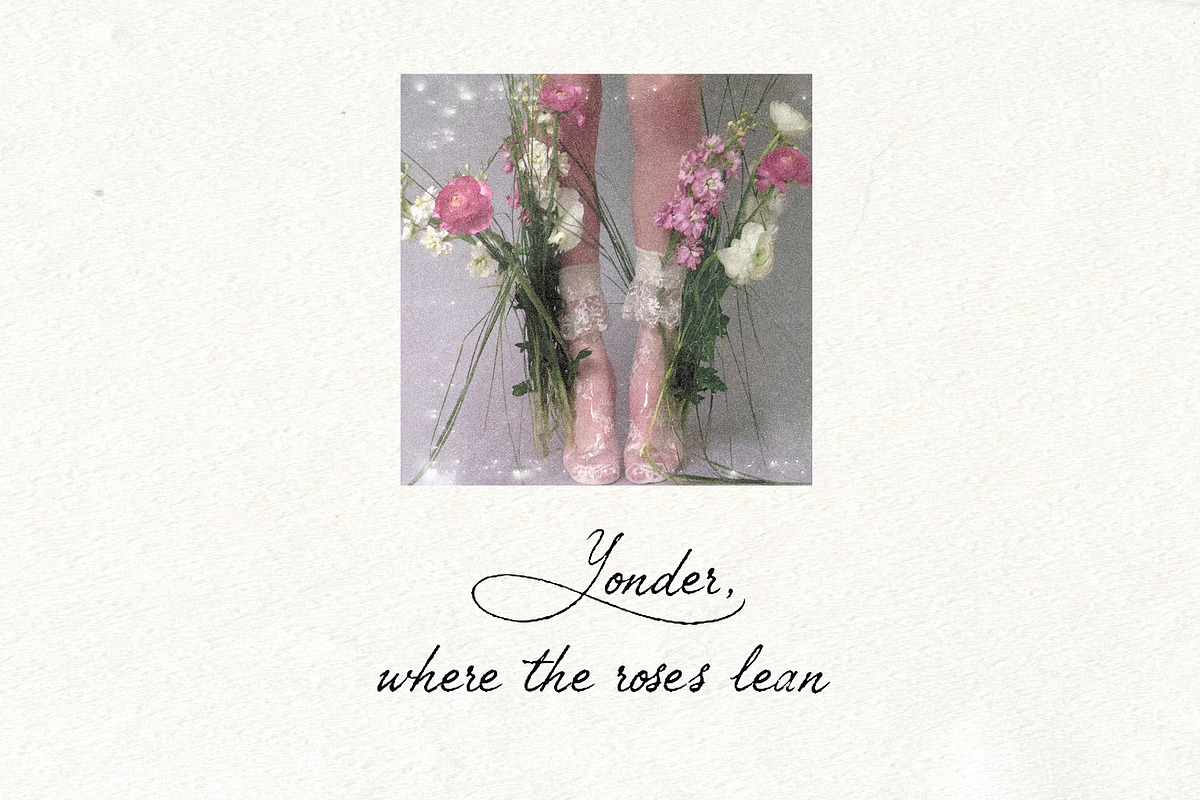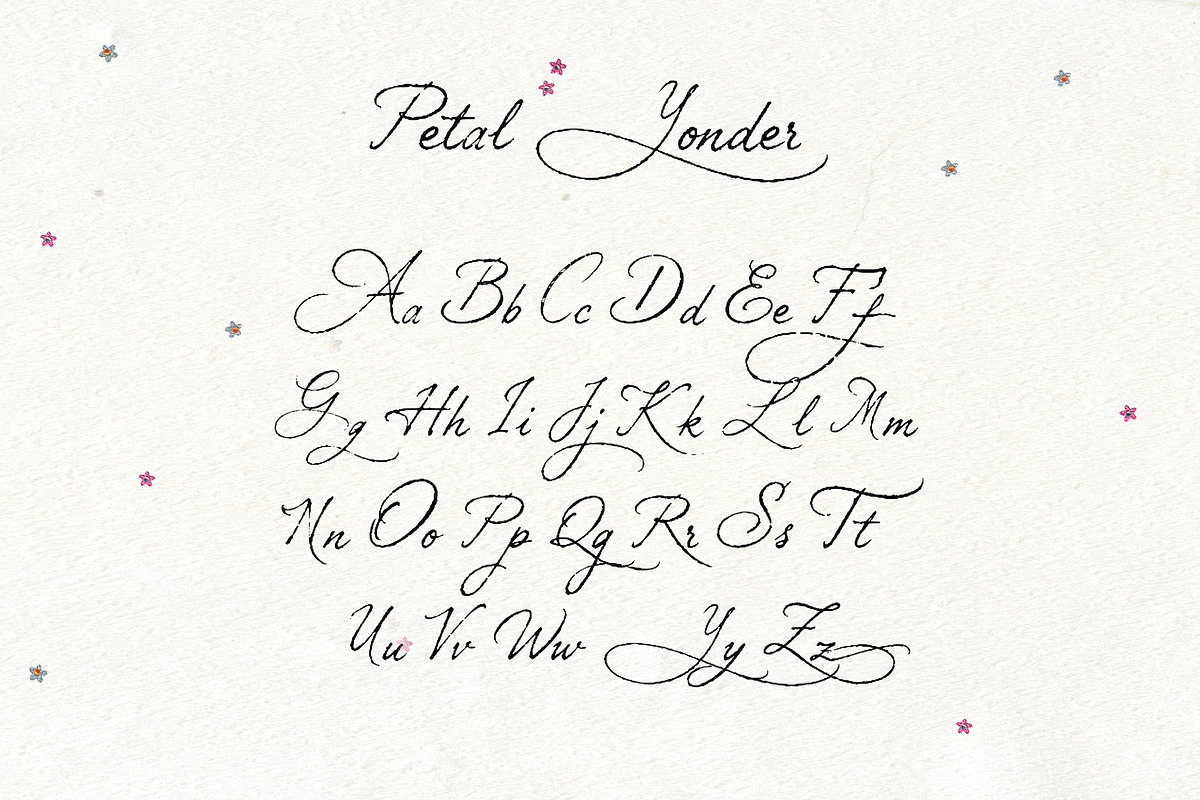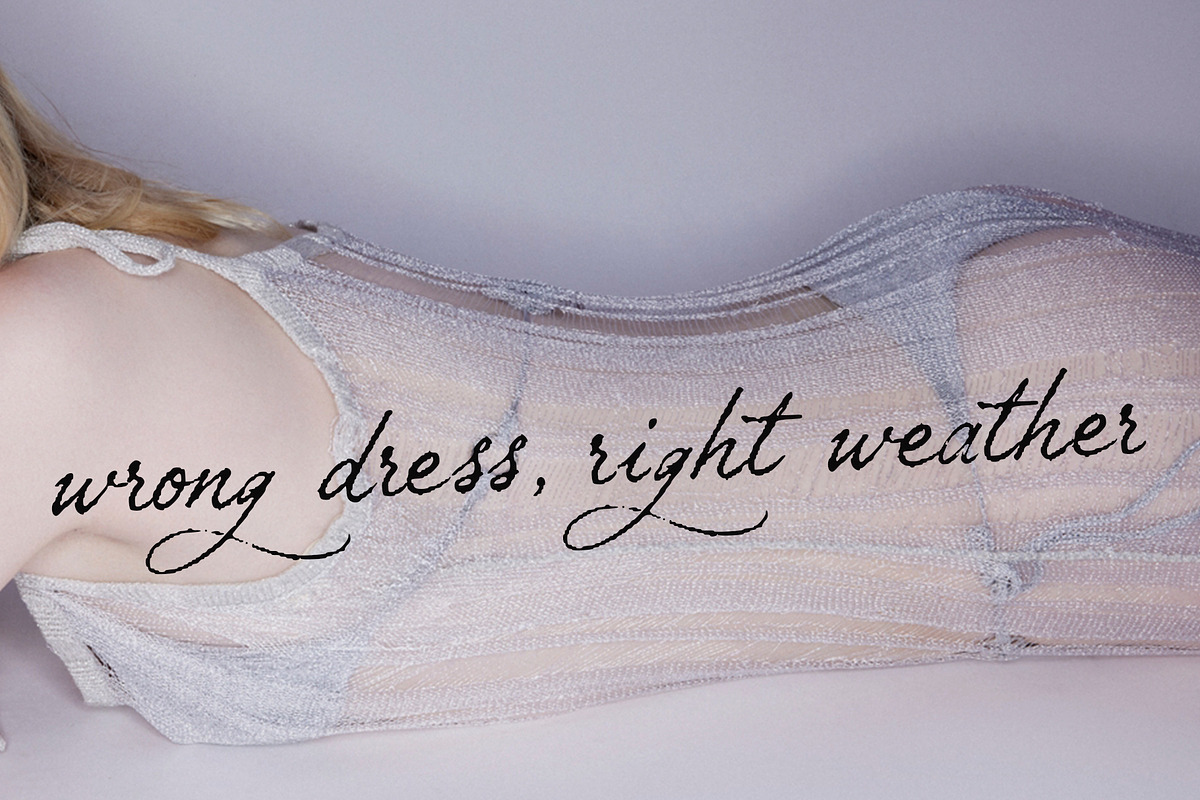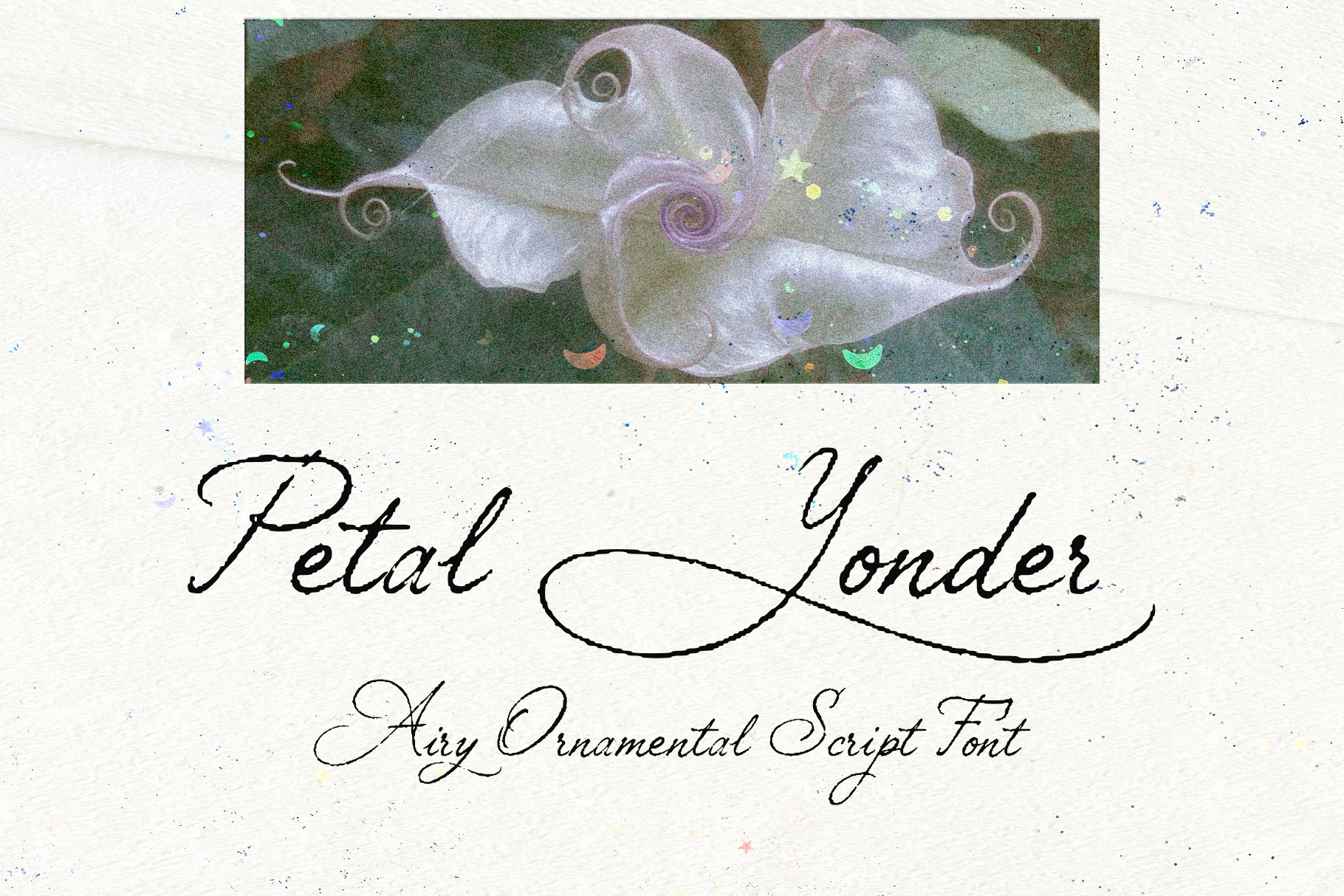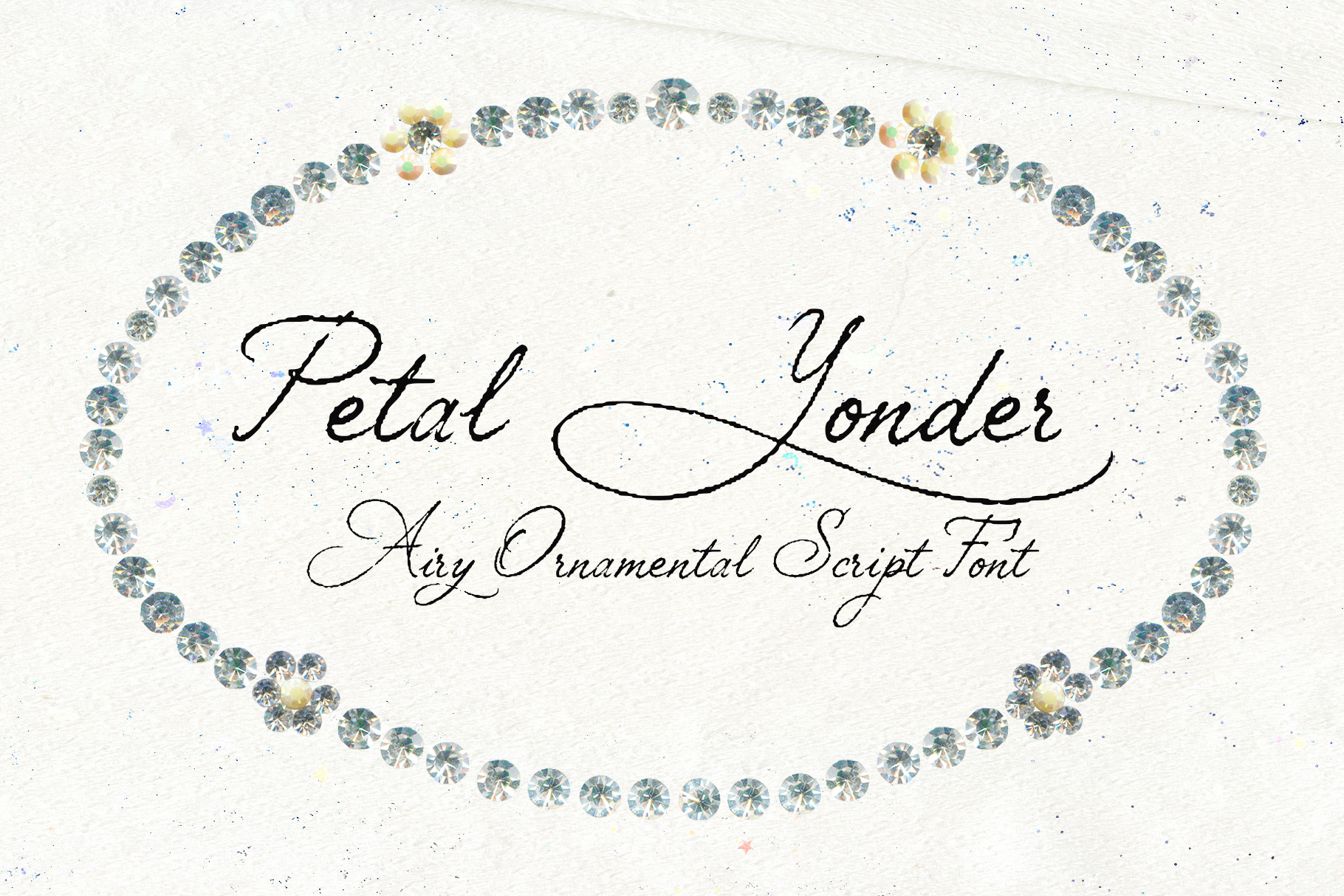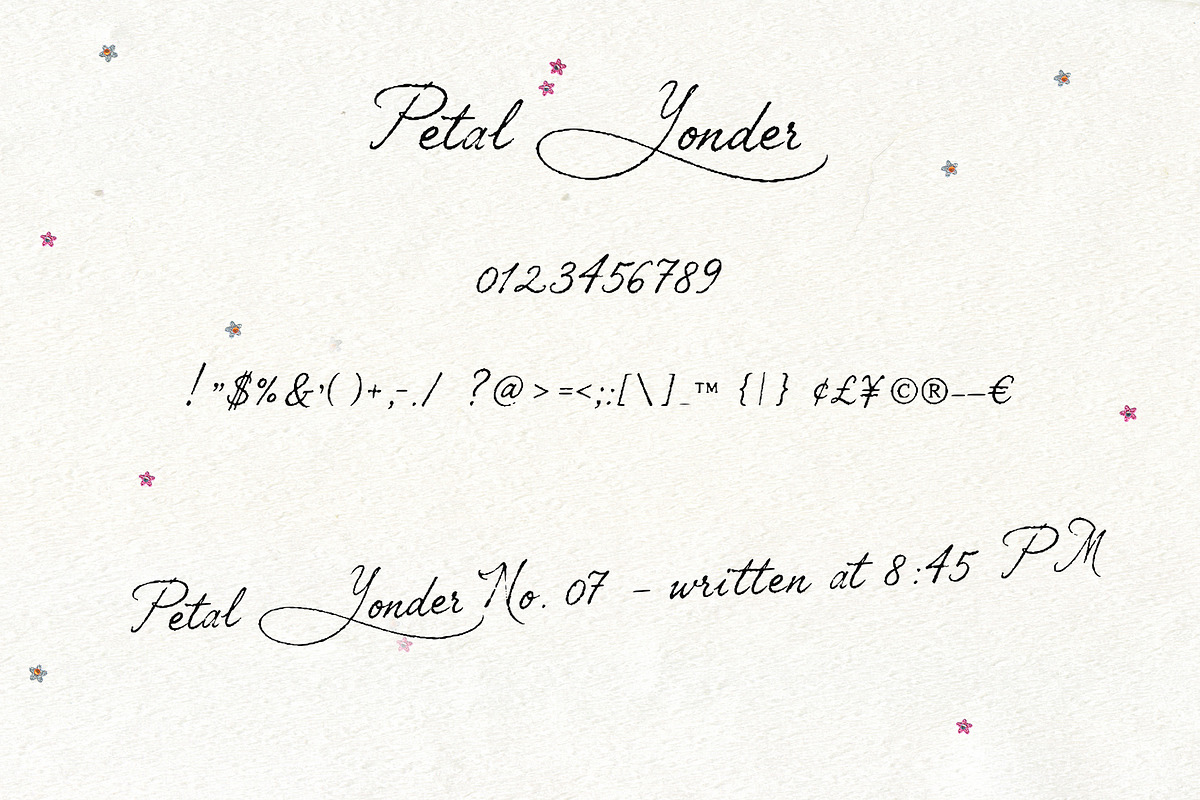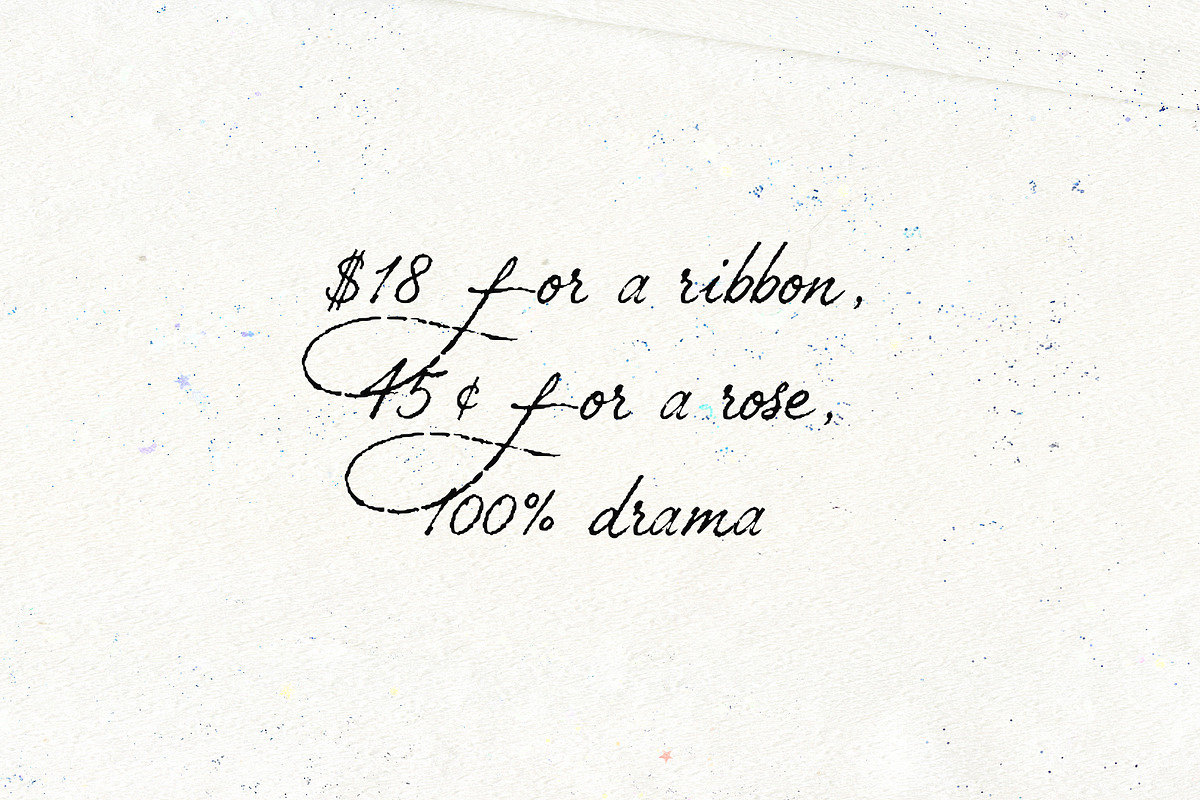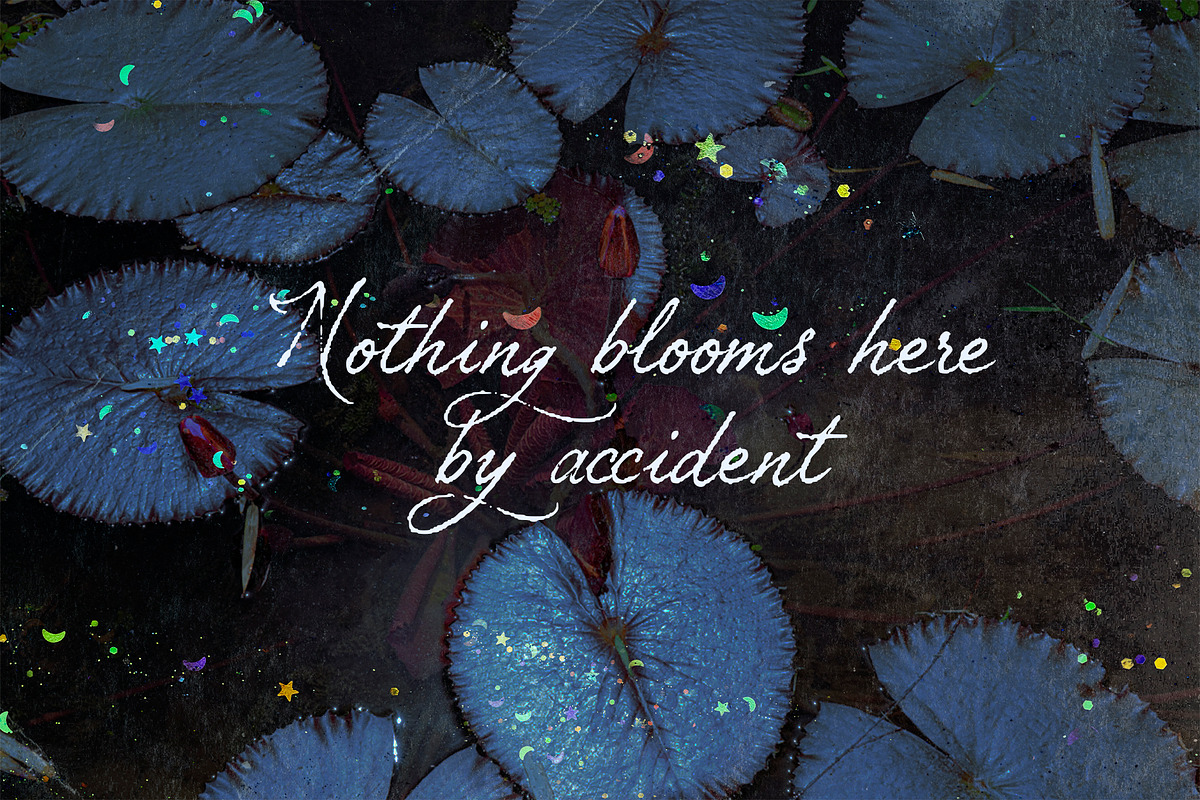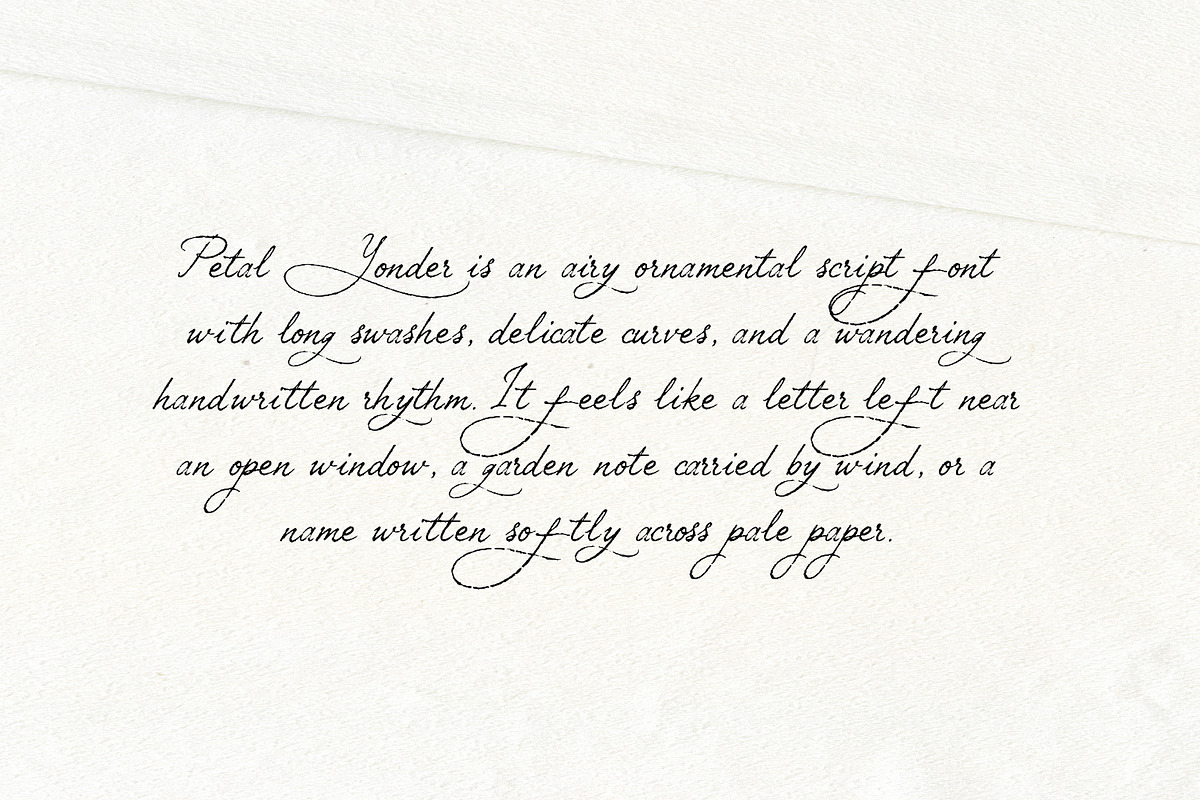
Petal Yonder: Airy Script Font
Petal Yonder is a decorative script font with a weightless, wind-drifted feel. Its long swashes, airy curves, and lightly imperfect texture give it a romantic but slightly untamed character — somewhere between floral lettering, vintage handwriting, and a more modern ornamental script.
It works beautifully when you want something soft but expressive: branding, beauty packaging, invitations, editorials, lookbooks, quotes, and delicate logo work. The letterforms feel graceful and fluid, while the extended strokes add movement and a dreamy silhouette.
This is the kind of script that does not sit quietly - it trails, loops, leans, and leaves a trace.
Uppercase letters
Lowercase letters
Best For
branding
logos
wedding stationery
feminine packaging
beauty visuals
invitations
editorial layouts
social media graphics
quotes
mood boards
lookbooks